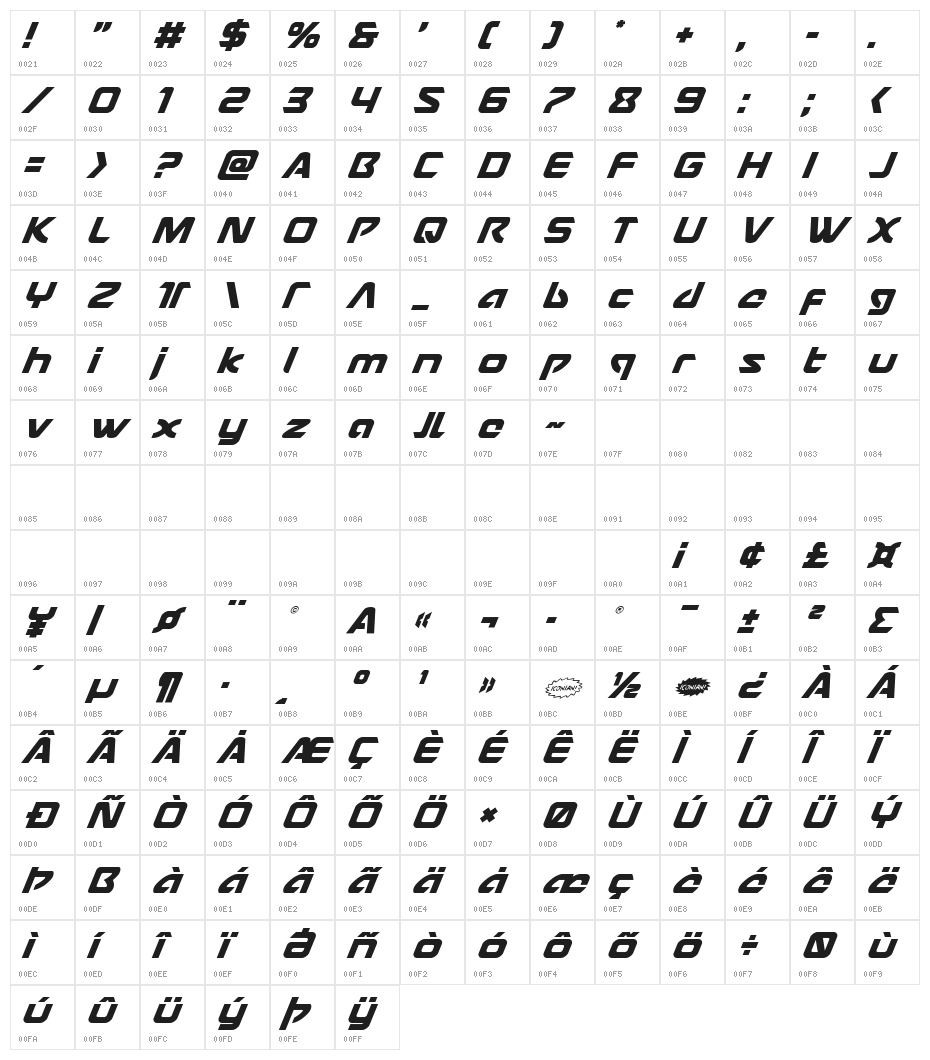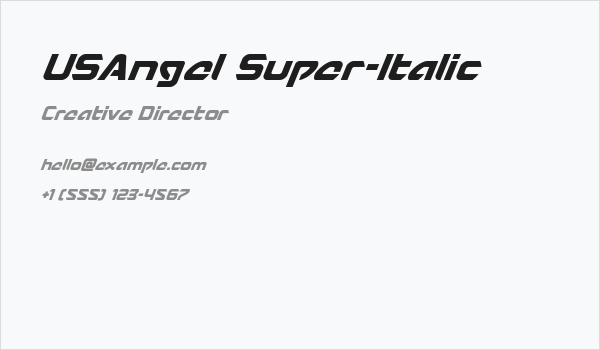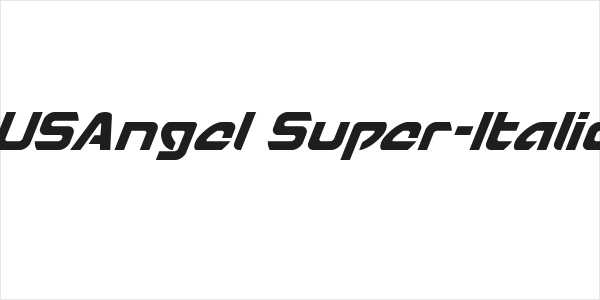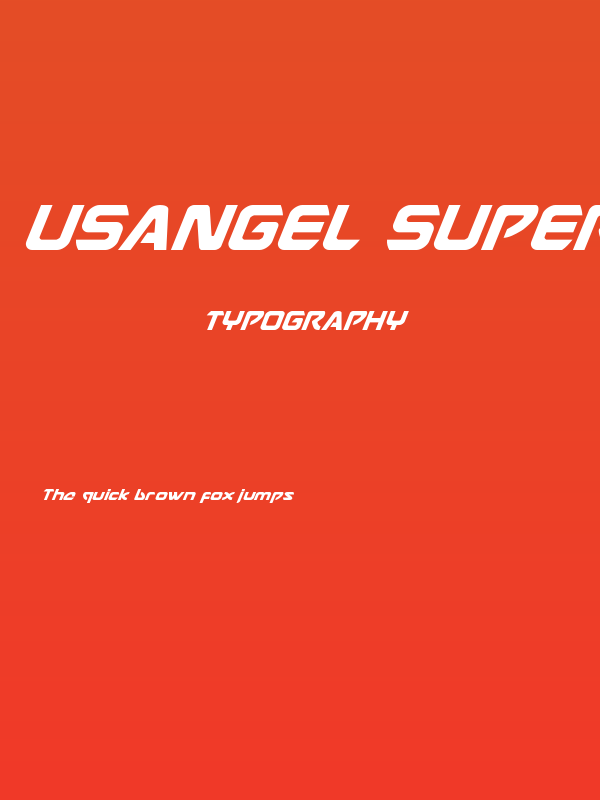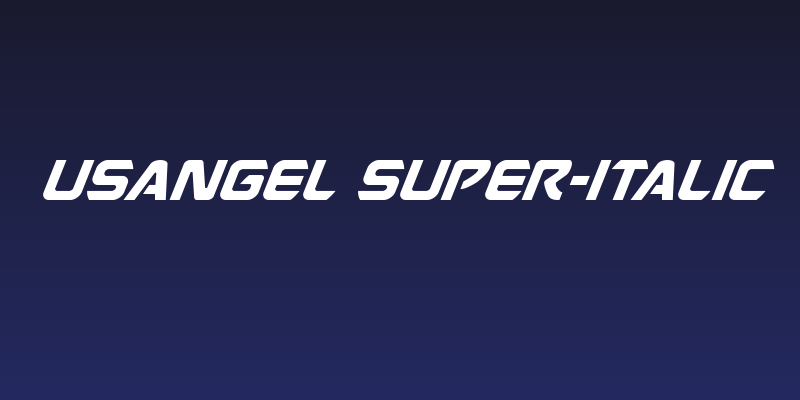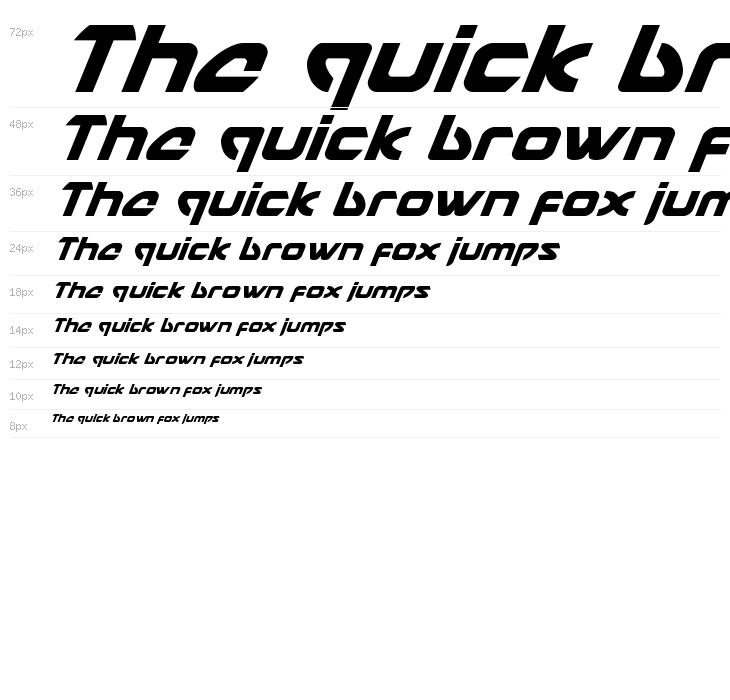
USAngel Super-Italic Font
USAngel Super-Italic Description
This font features a dynamic and modern italic style with a strong geometric influence. The characters are bold and slanted, giving a sense of motion and speed. The uppercase and lowercase letters maintain a consistent angle, enhancing the italic effect. The numbers and special characters follow the same design principles, ensuring uniformity across all glyphs. The font's sharp edges and clean lines make it suitable for contemporary design projects. Its distinct style is eye-catching and memorable, making it ideal for branding and advertising.
| Overall Style | Modern, Dynamic |
| Proposed Projects | Ideal for branding, advertising, sports team logos, and dynamic poster designs. |